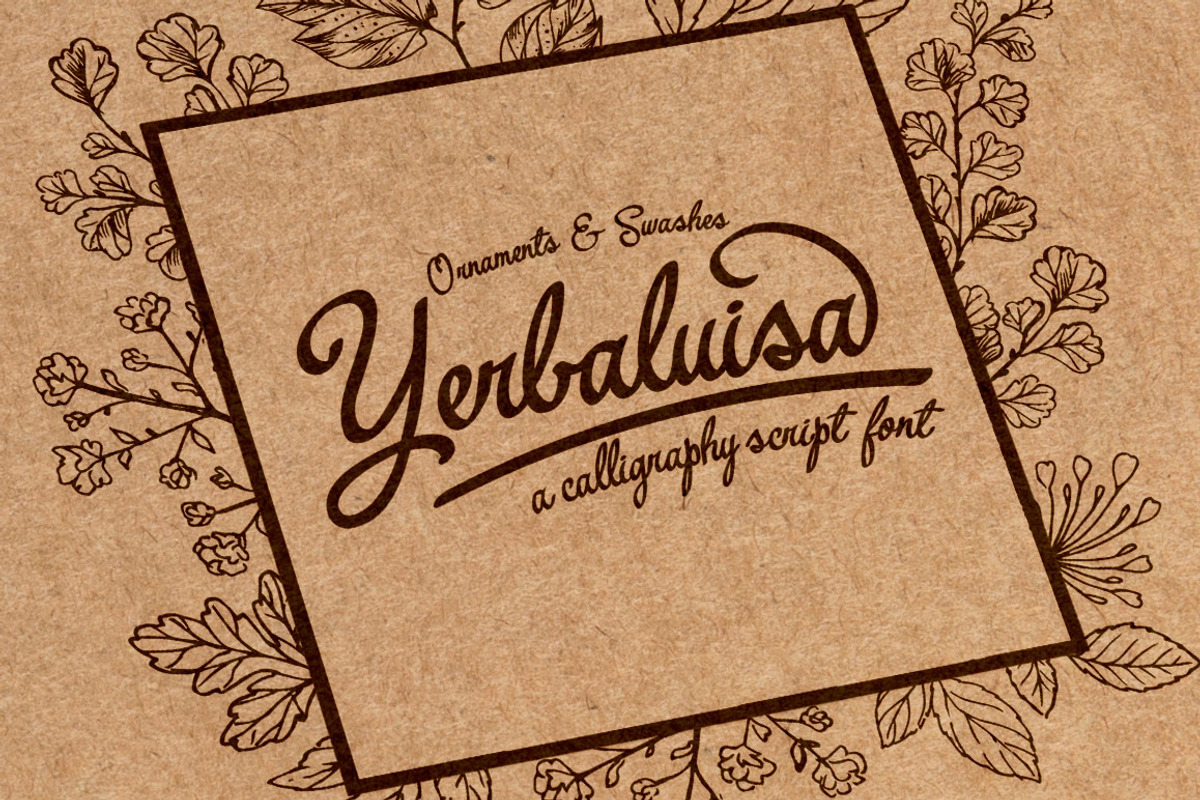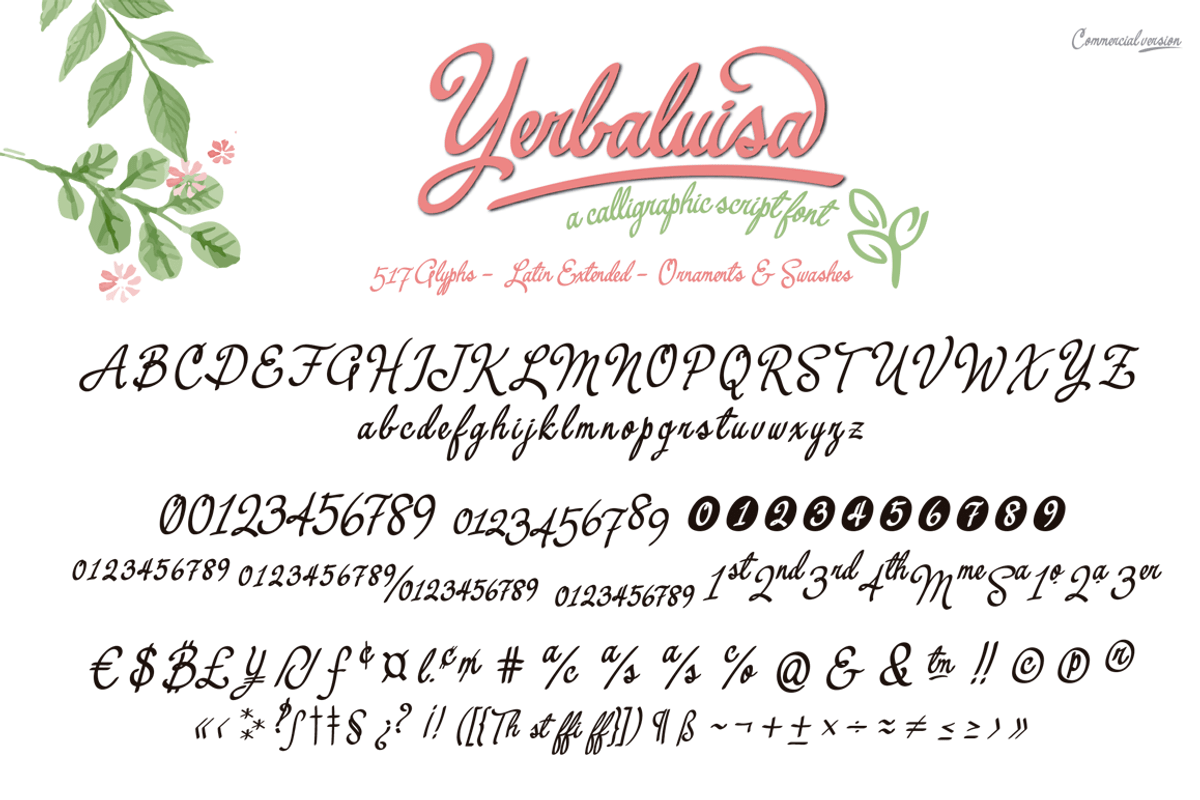
Yerbaluisa, calligraphic font
Yerbaluisa, calligraphic font by deFharo is a font selected for branding, posters, packaging, typography.
Why Yerbaluisa, calligraphic font is worth a look
Yerbaluisa, calligraphic font by deFharo fits naturally into Branding, posters, packaging, typography.